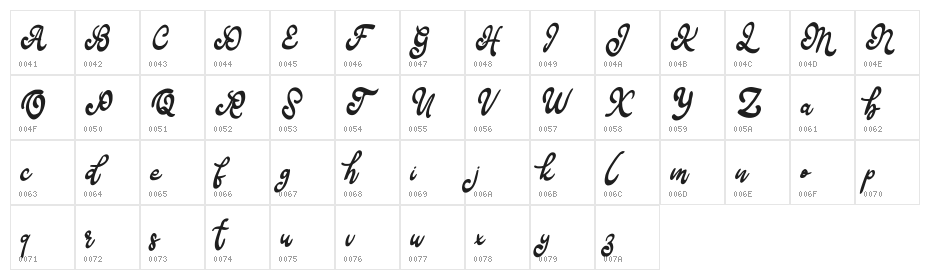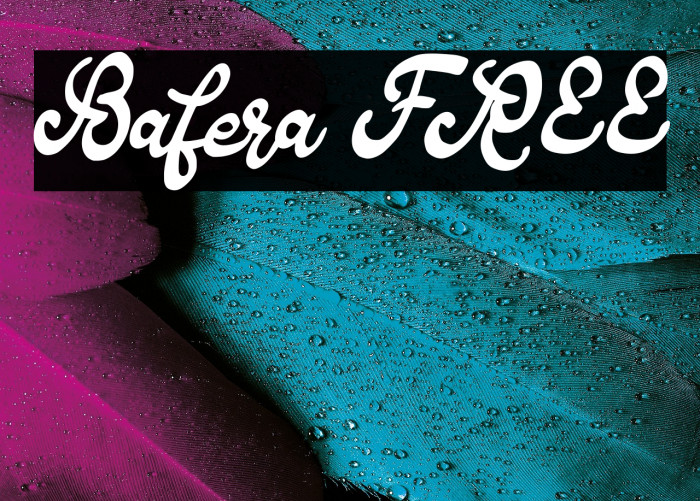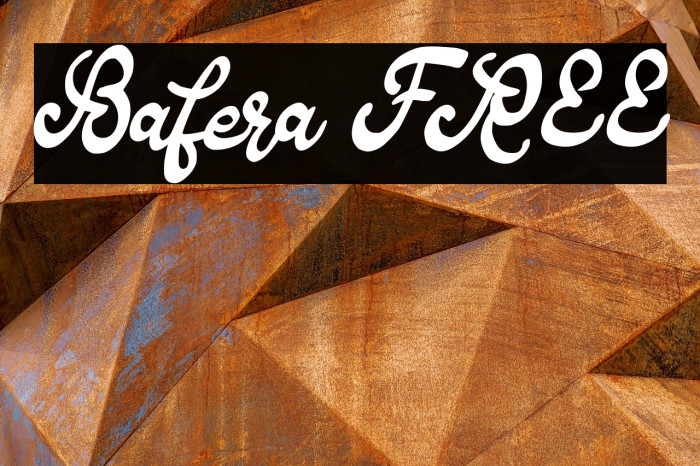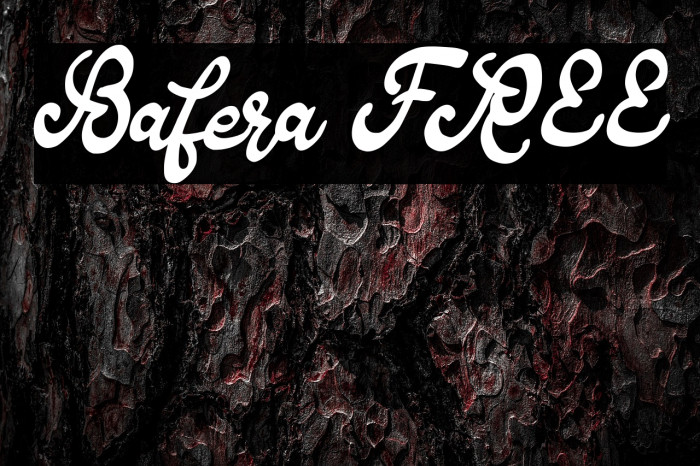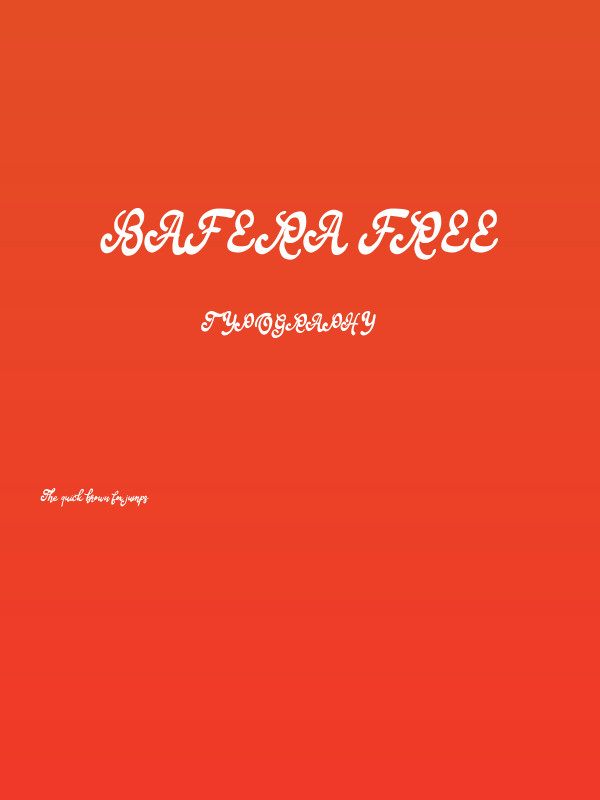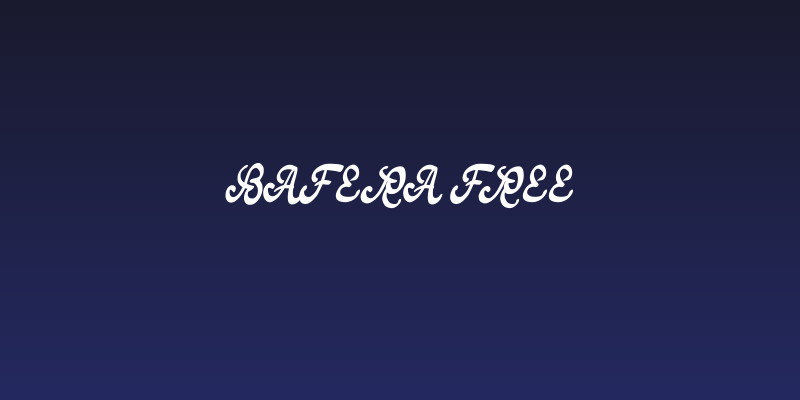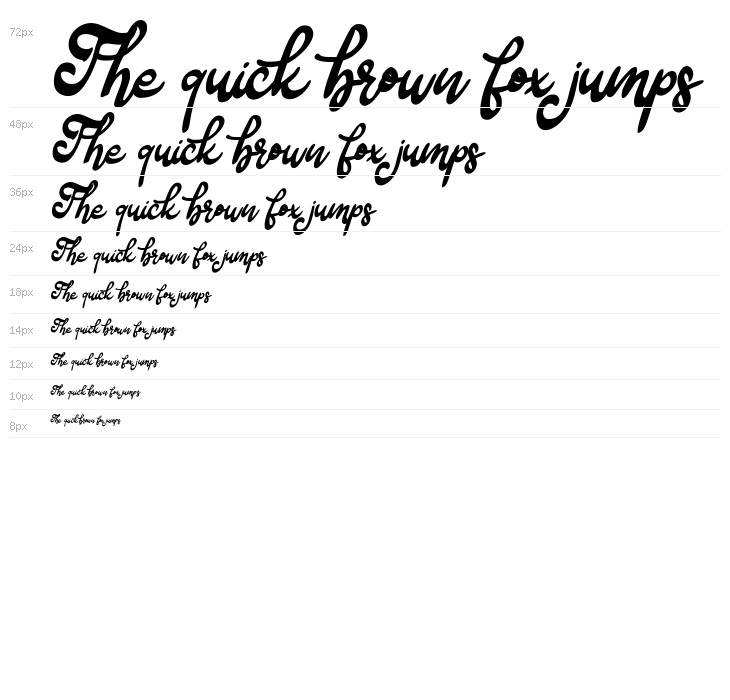
Bafera FREE Font
Bafera FREE Description
This font features an elegant, flowing script style with a handwritten appearance. The characters are connected, creating a seamless and fluid look that is both sophisticated and artistic. The uppercase letters are slightly larger and more ornate, while the lowercase letters maintain a consistent flow. The font includes a full set of uppercase and lowercase letters, numbers, and a selection of special characters. The strokes are bold and consistent, providing a strong visual impact. This font is ideal for projects that require a touch of elegance and creativity.
| Overall Style | Elegant, Artistic |